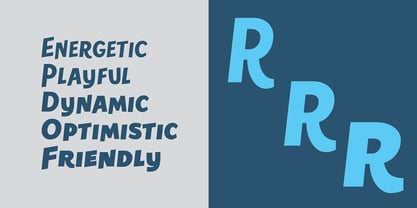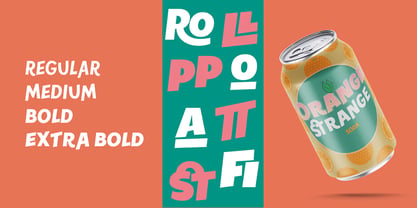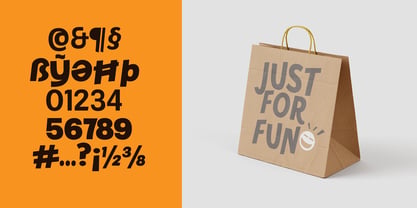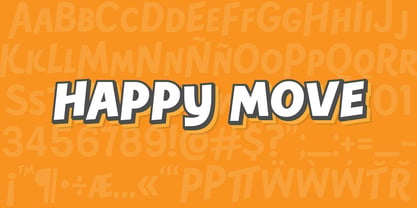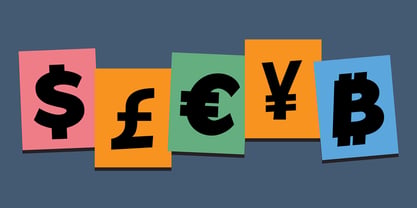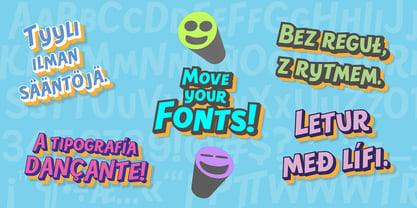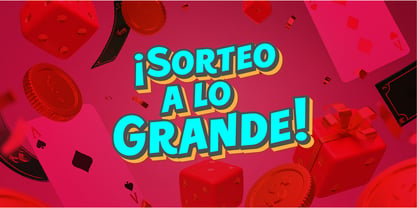
Happy Move
La famille de polices Happy Move a été conçue par Carlos Candray et publiée par CentroType. Happy Move contient 4 styles et options de package familial. En savoir plus sur cette famille
HappyMove is a playful sans serif display typeface designed to bring rhythm and energy to your words. With variable letter heights, expressive curves, and handcrafted kerning, it adds movement and personality to headlines, packaging, posters, and bold editorial layouts.
Built with multilingual support and stylistic ligatures, HappyMove is more than a font — it’s a visual voice that smiles, dances, and stands out.